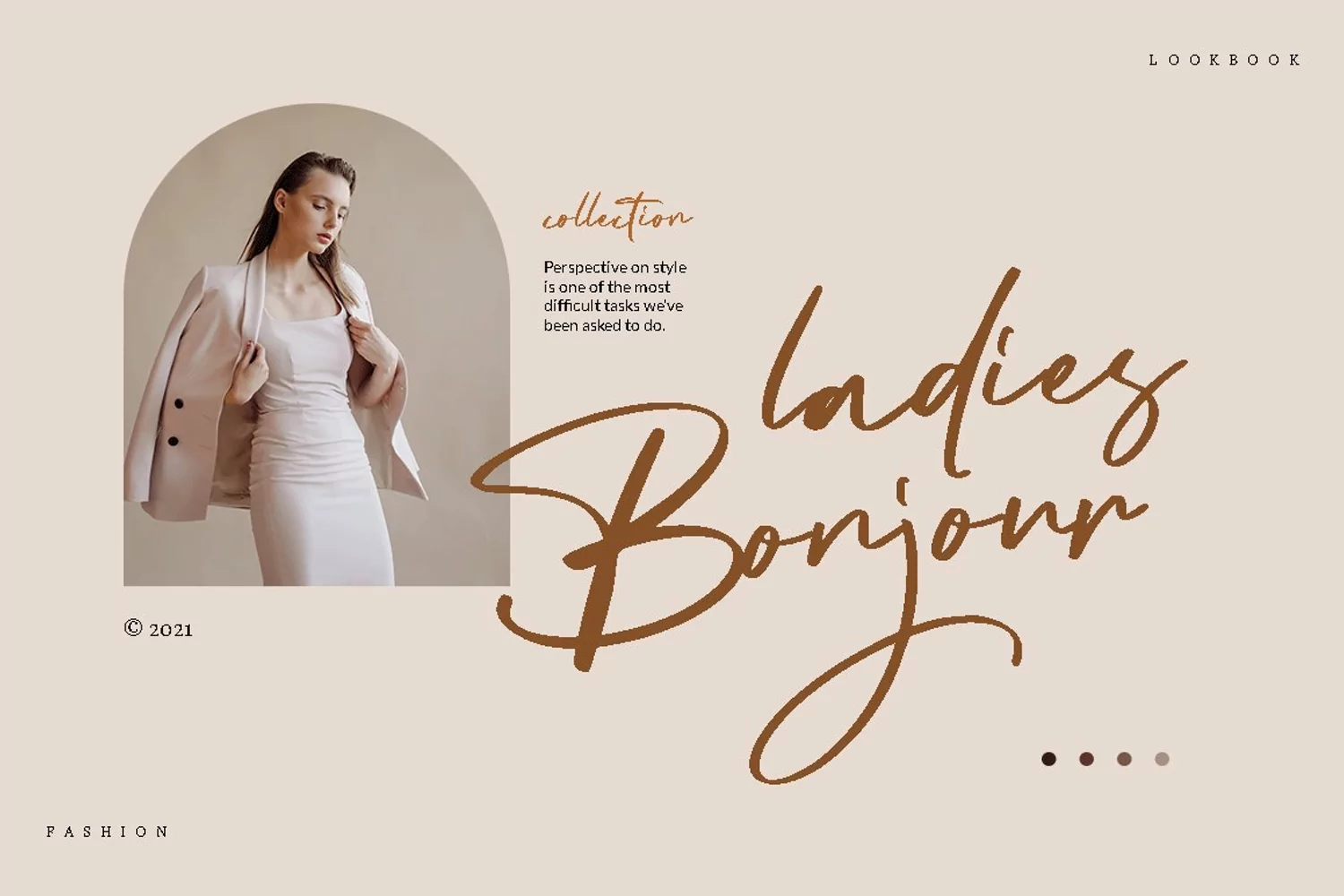
Adritany - Handwritten Font
Adritany is perfect for branding projects, logo, wedding designs, social media posts, advertisements, product packaging, product designs, label, photography, watermark, invitation, stationery and any projects that need handwriting taste.